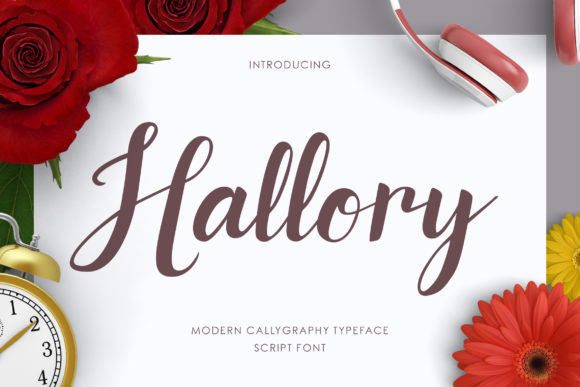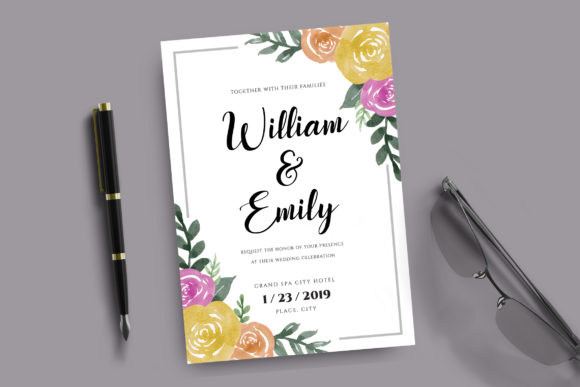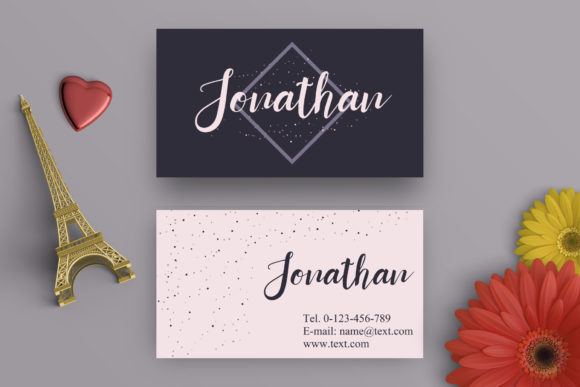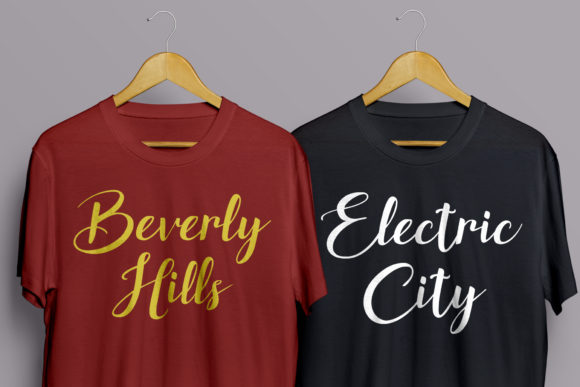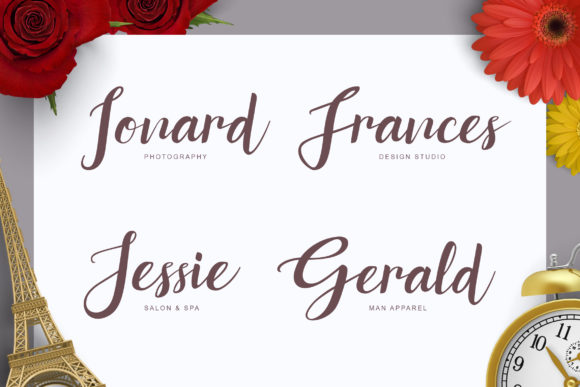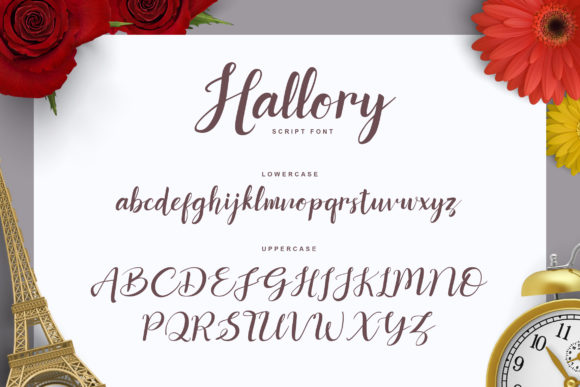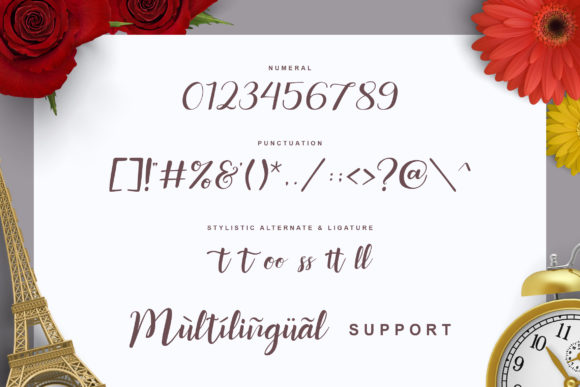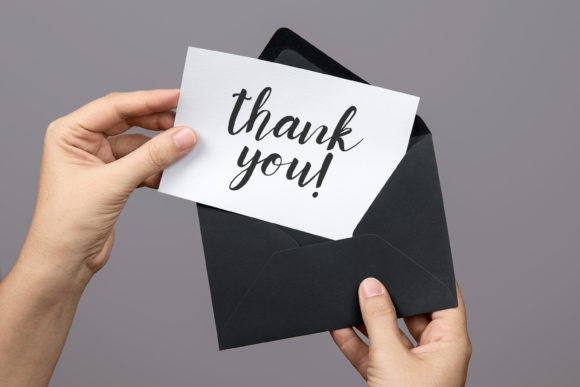
Hallory Font
About Hallory Font
Hallory is a beautiful and charming handwritten font with an incredibly bold feel. It will turn any design project into a stand out!